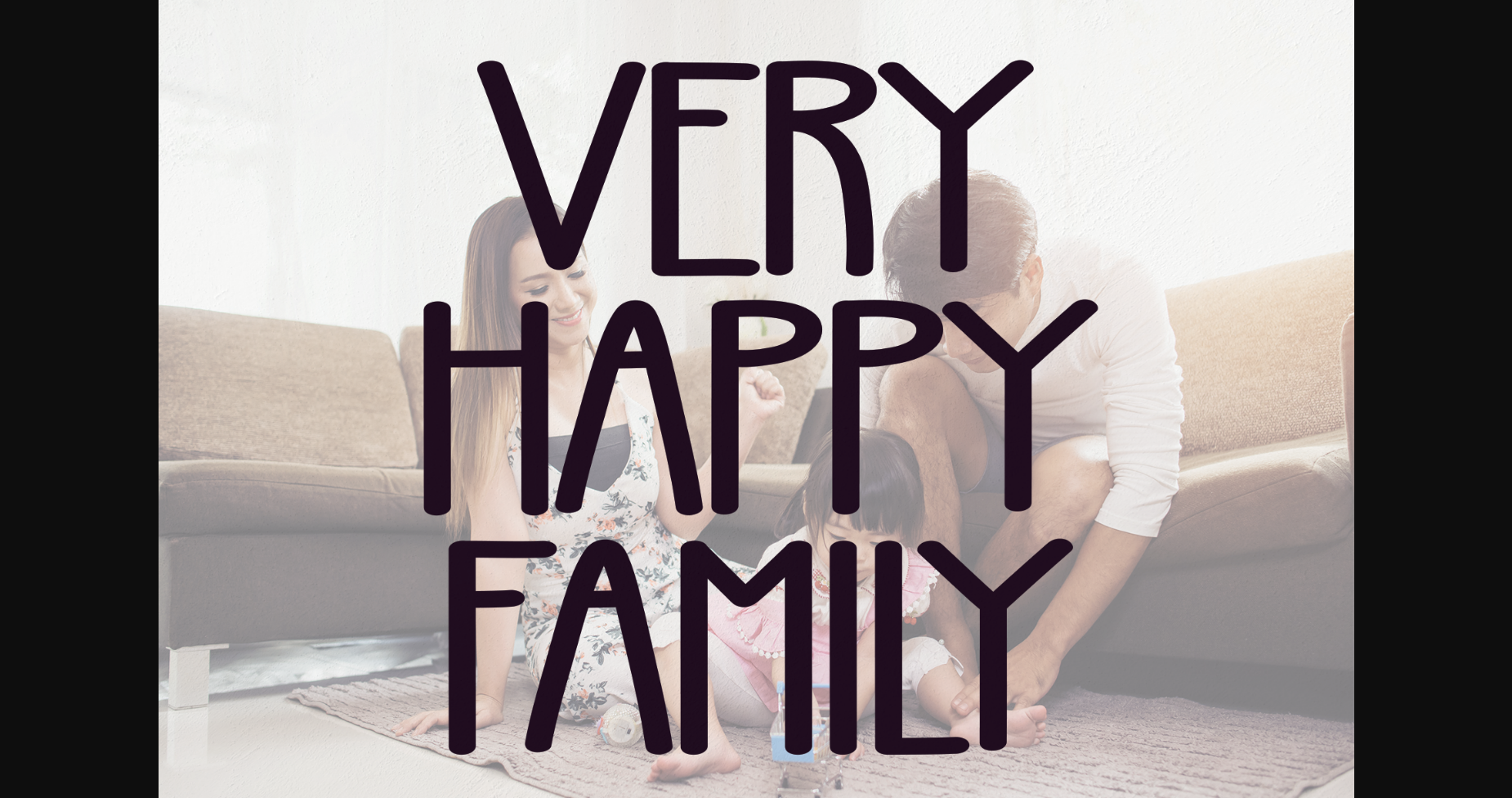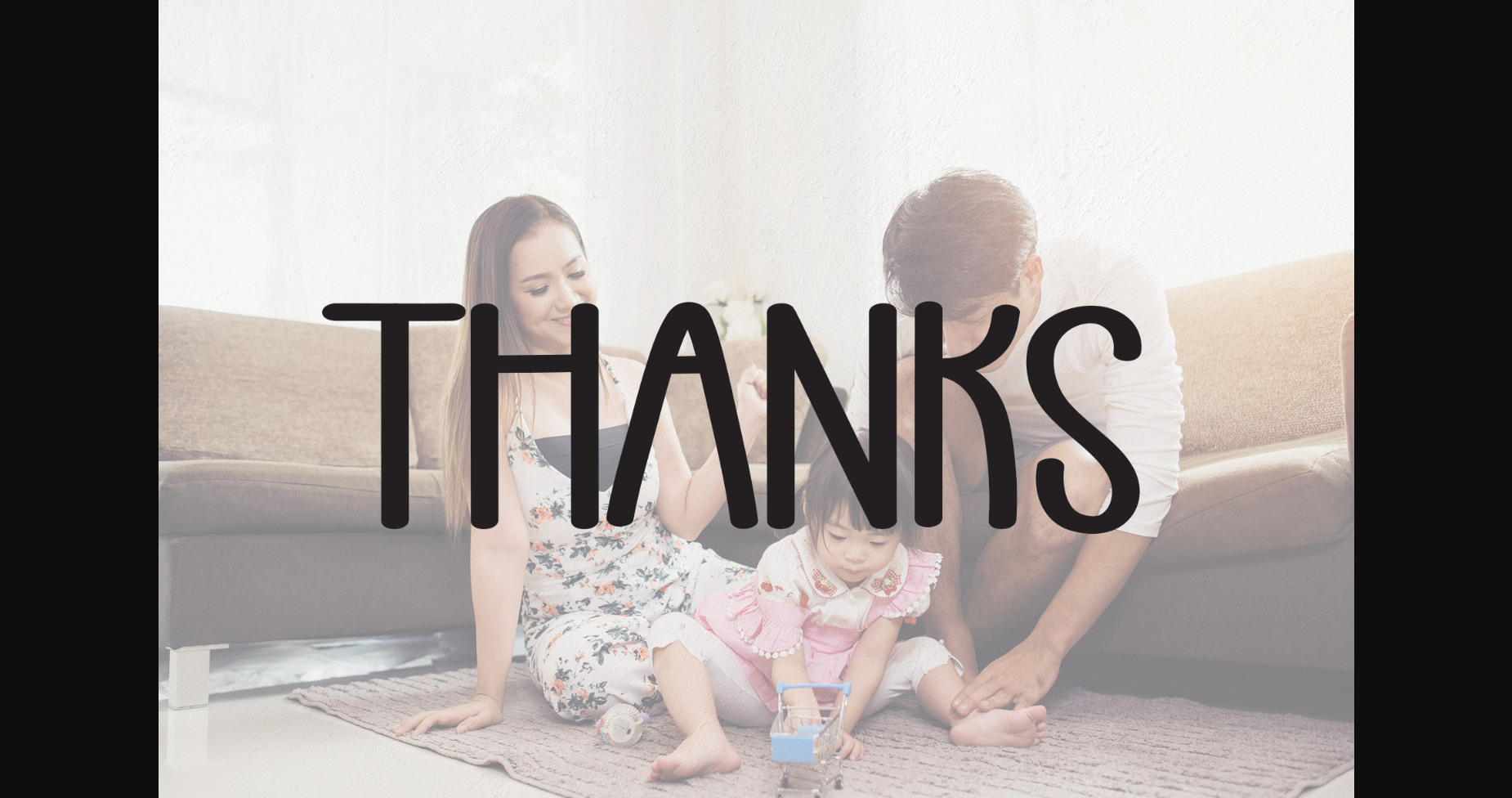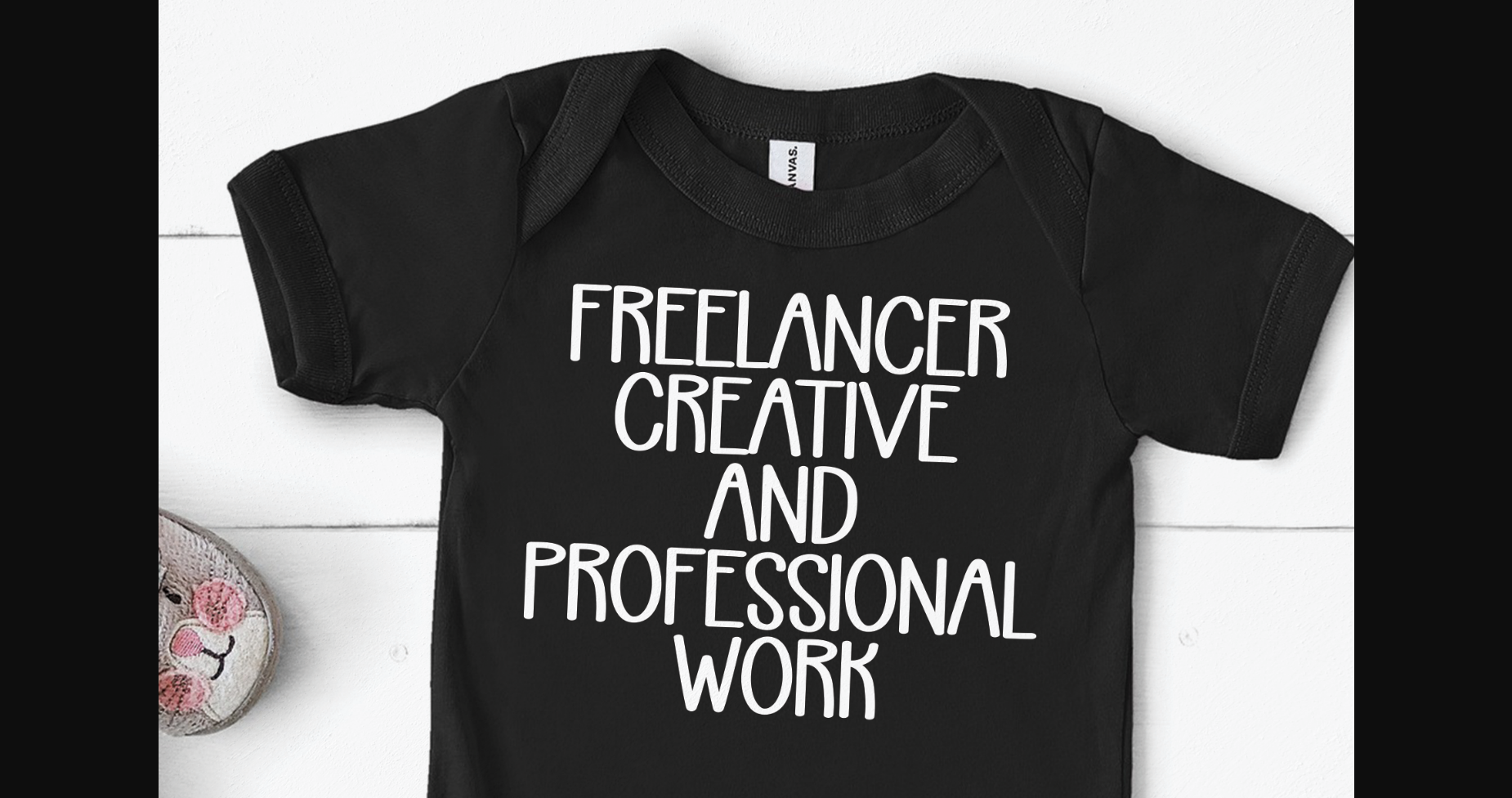
About Very Happy Family Font
Very Happy Family is a wonderful sans serif font with rounded edges. It is perfect for wall displays, wedding invitations, social media post logos, advertisements, product packaging, product designs, labels, photography, watermarks, invitations, stationery,
and any project that requires a taste of handwriting.